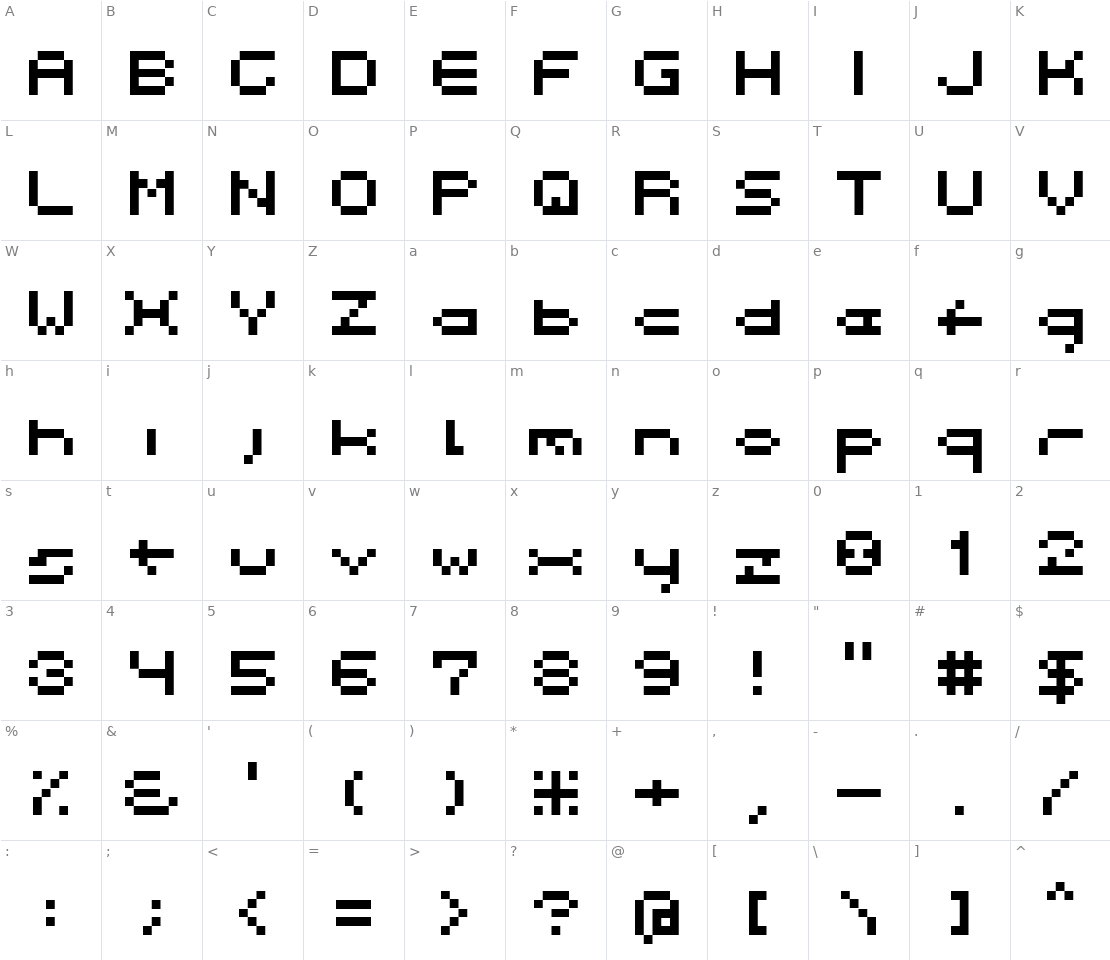
Spacebit
by Cosmic Cosmos
Spacebit is a blocky pixel typeface from Cosmic Cosmos that splits the difference between retro 8-bit nostalgia and a cooler, more futuristic tone. The monospaced letterforms have a crisp, digital rigidity that reads as much like a spaceship console readout as a classic game screen. Built for headlines, tech interfaces, and display use where you want that bitmap aesthetic without losing a sense of forward momentum.